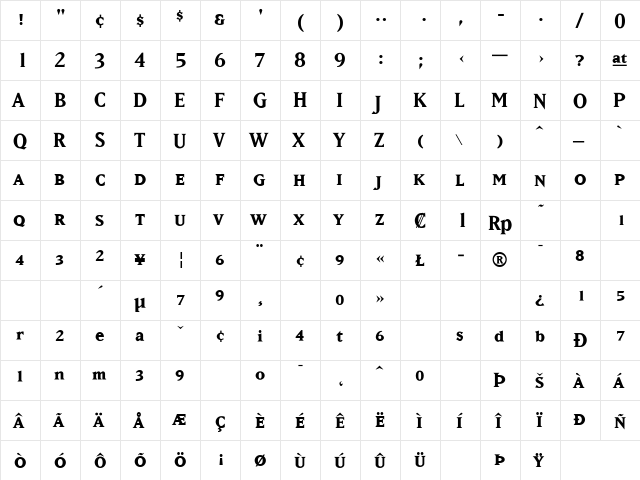
MatrixSmallCaps Bold
Design Context for MatrixSmallCaps Typeface
MatrixSmallCaps takes a measured approach to typography — its balanced proportions and neutral character make it a reliable workhorse for both digital and print work. The heavy weight commands attention and anchors typographic hierarchies.